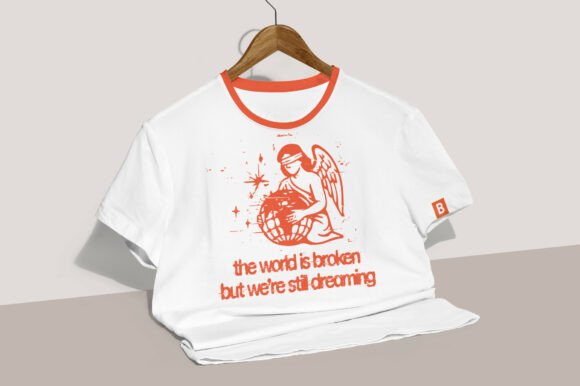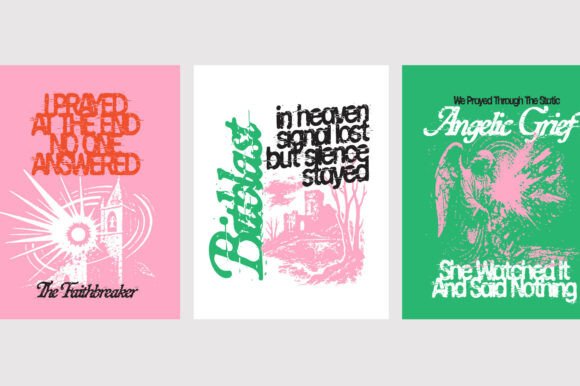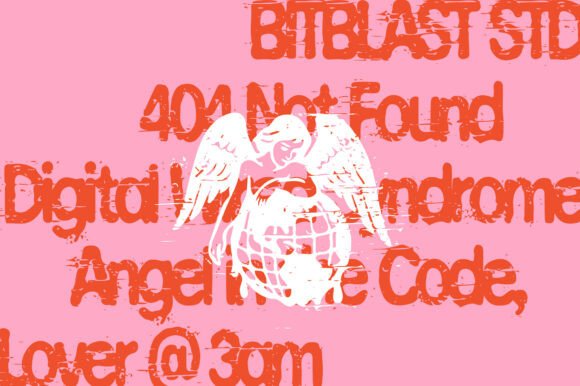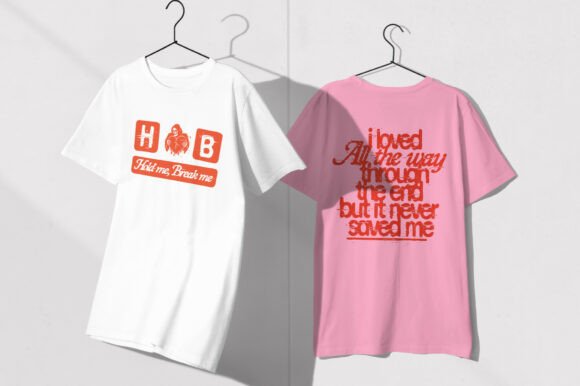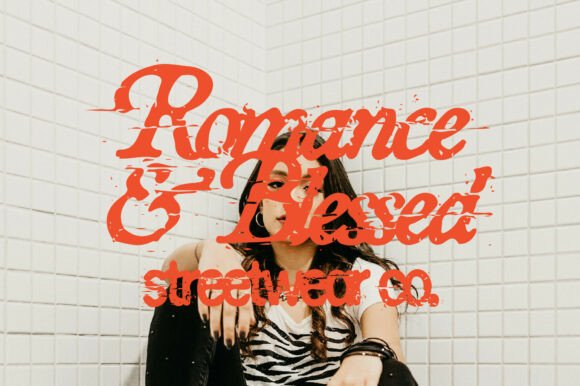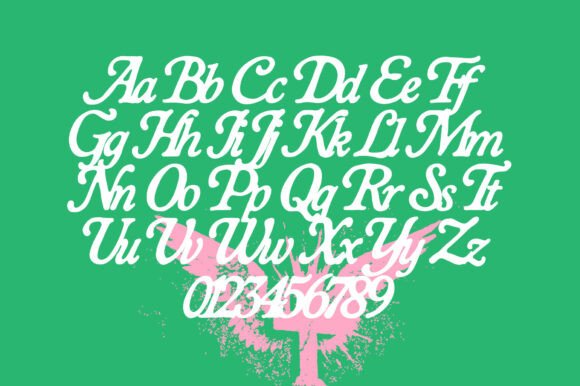
Introduction to Bitblastserif Regular Font
Bitblast is a bold serif and sans font duo characterized by its raw, distressed aesthetic.
Engineered for high-impact visuals, it merges gothic-infused serif details with a condensed sans structure that conveys a futuristic, subversive tone Ideal for dark streetwear, Y2K-inspired design, and glitch-themed branding, Bitblast delivers a distinctive edge suited for logos, apparel, posters, and identity systems demanding strong visual presence.
Key Features of Bitblastserif Regular Font